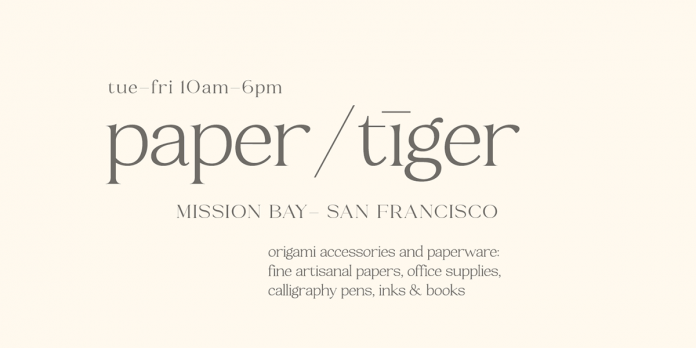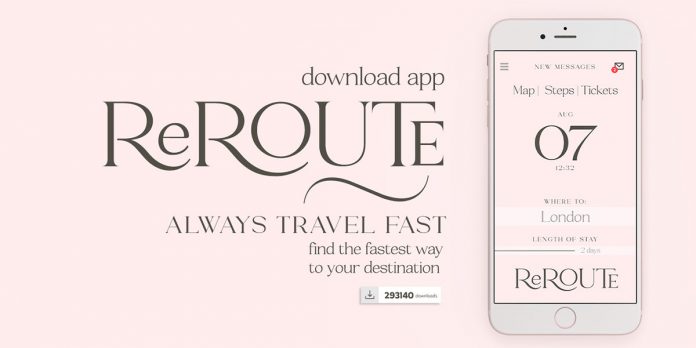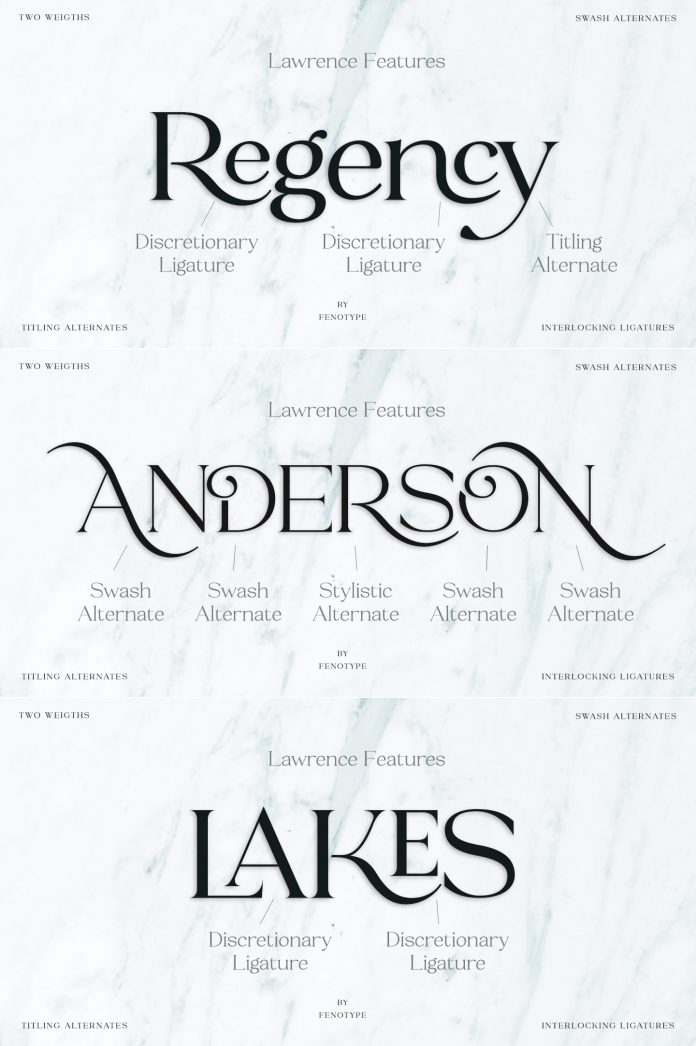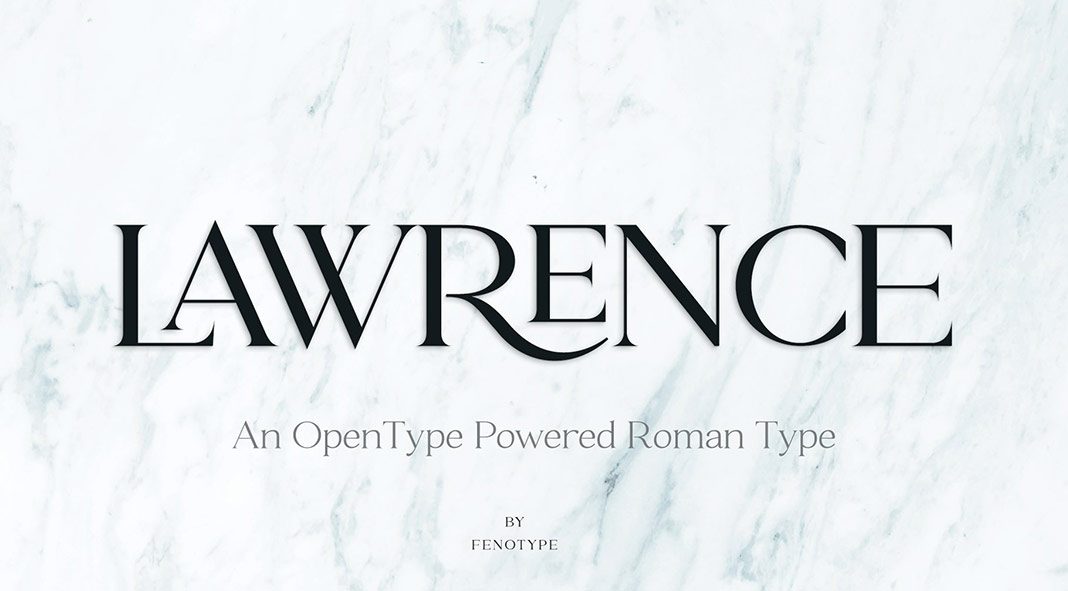
Lawrence, a Roman display font duo designed by Emil Bertell and published by type foundry Fenotype.
Equipped with two weights consisting of a regular and bold version—the Lawrence font duo was published in 2019 by the people of foundry Fenotype. Its elegant design works quite well in a variety of applications such as branding projects as well as packaging, signage, and editorials. Please note, the Lawrence font duo is currently available as a massively reduced introductory offer at the following websites. Just click on one of the links to get these amazing fonts or read more below the image.
The typeface comes with 192 OpenType alternates including Swashes, Stylistic and Titling Alternates. In addition, it is equipped with a wide range of Ligatures. These ligatures contain special pairings in Uppercase + Uppercase, Uppercase + Lowercase, and Lowercase + Lowercase. The well-balanced kerning ensures great readability in any size.